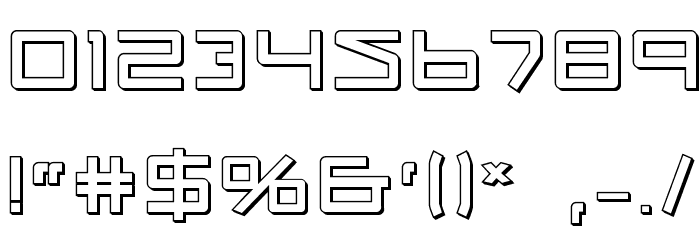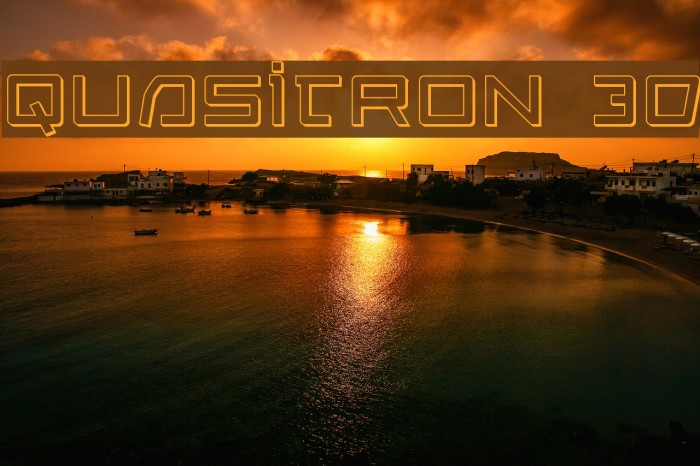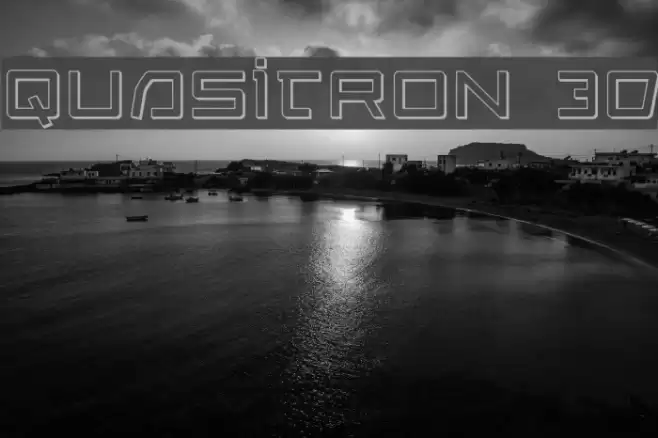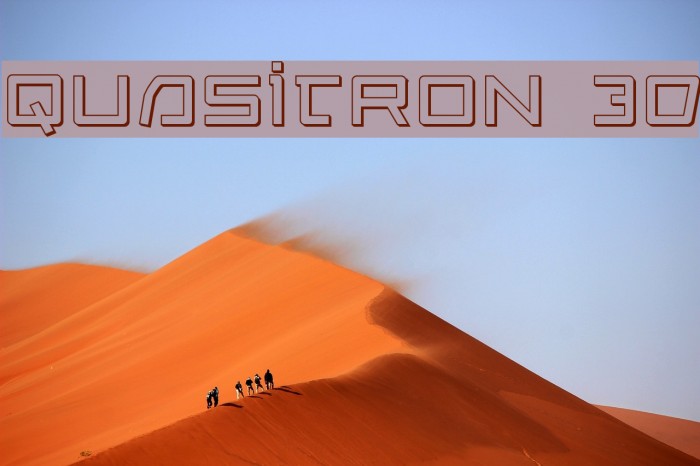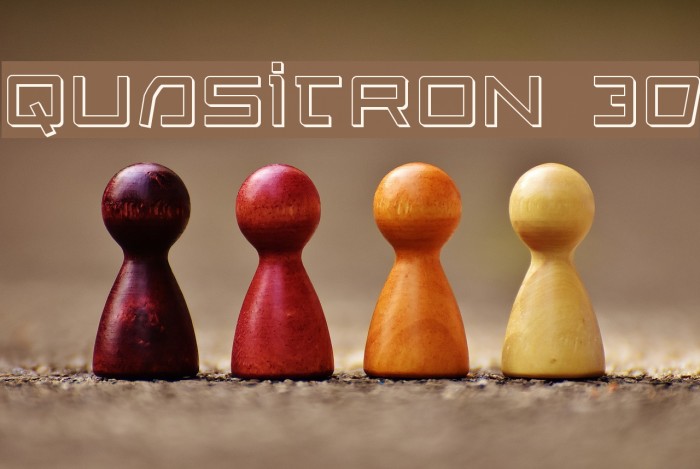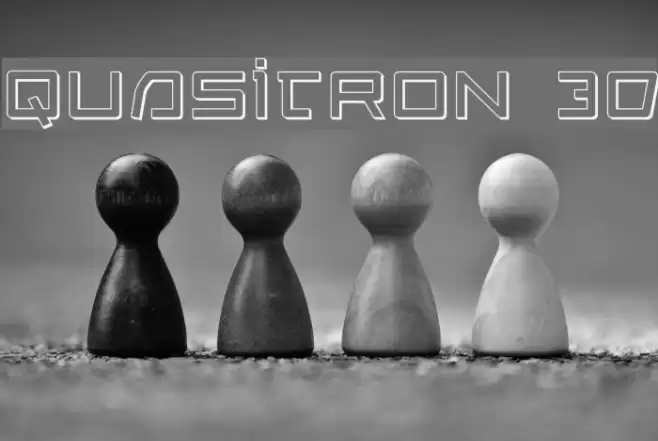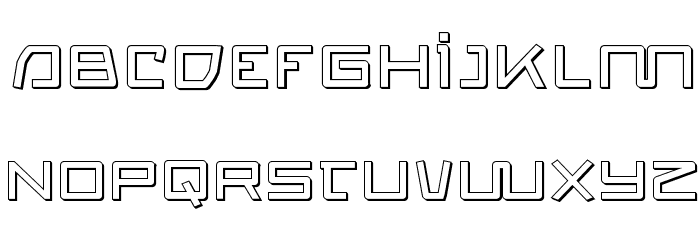
Quasitron 3D Font
Quasitron 3D Description
This font features a futuristic, geometric design with a three-dimensional effect. The characters are outlined with a bold, angular style that gives a sense of depth and modernity. The uppercase and lowercase letters maintain a consistent structure, emphasizing sharp edges and straight lines. Numbers and special characters follow the same design principles, ensuring uniformity across all glyphs. The font's unique appearance makes it stand out, suitable for projects that require a modern and technological aesthetic.
| Proposed Projects | Ideal for technology branding, sci-fi posters, video game titles, and digital media projects. |